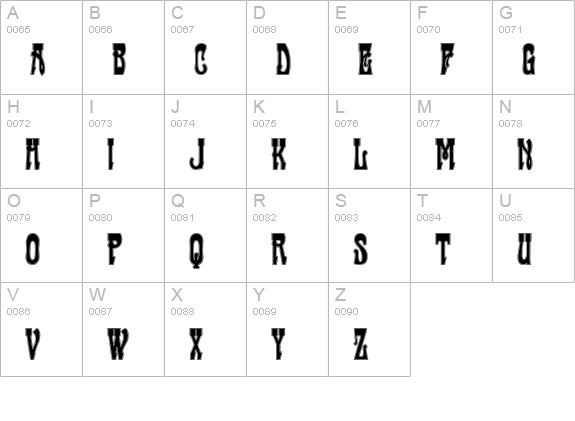
Traktir-Modern Contour Font Details
Traktir-Modern Contour font is a stunning display typeface that is sure to make a bold statement in any design. With its unique and modern contour style, this font is perfect for adding a touch of elegance and sophistication to your projects. Featuring clean lines and sharp edges, Traktir-Modern Contour font exudes a sense of professionalism and professionalism. Its well-crafted letterforms are both eye-catching and legible, making it suitable for a wide range of applications, including branding, packaging, logos, and more. The versatility of Traktir-Modern Contour font is further enhanced by its extensive character set, which includes uppercase and lowercase letters, numbers, punctuation marks, and special symbols. This allows you to unleash your creativity and create visually striking designs that are uniquely yours. One of the best things about Traktir-Modern Contour font is that it is available for free download at FontsMarket.com. This means that you can easily access and use this amazing font without any cost. Simply visit FontsMarket.com and discover the beauty and potential of Traktir-Modern Contour font for yourself. Whether you are a professional designer looking to elevate your projects or a casual creator seeking to add a touch of sophistication to your personal endeavors, Traktir-Modern Contour font is the perfect choice. Its sleek and modern design, combined with its availability as a free download, makes it a must-have in your font library. So don't miss out on this incredible font and start creating stunning designs today!